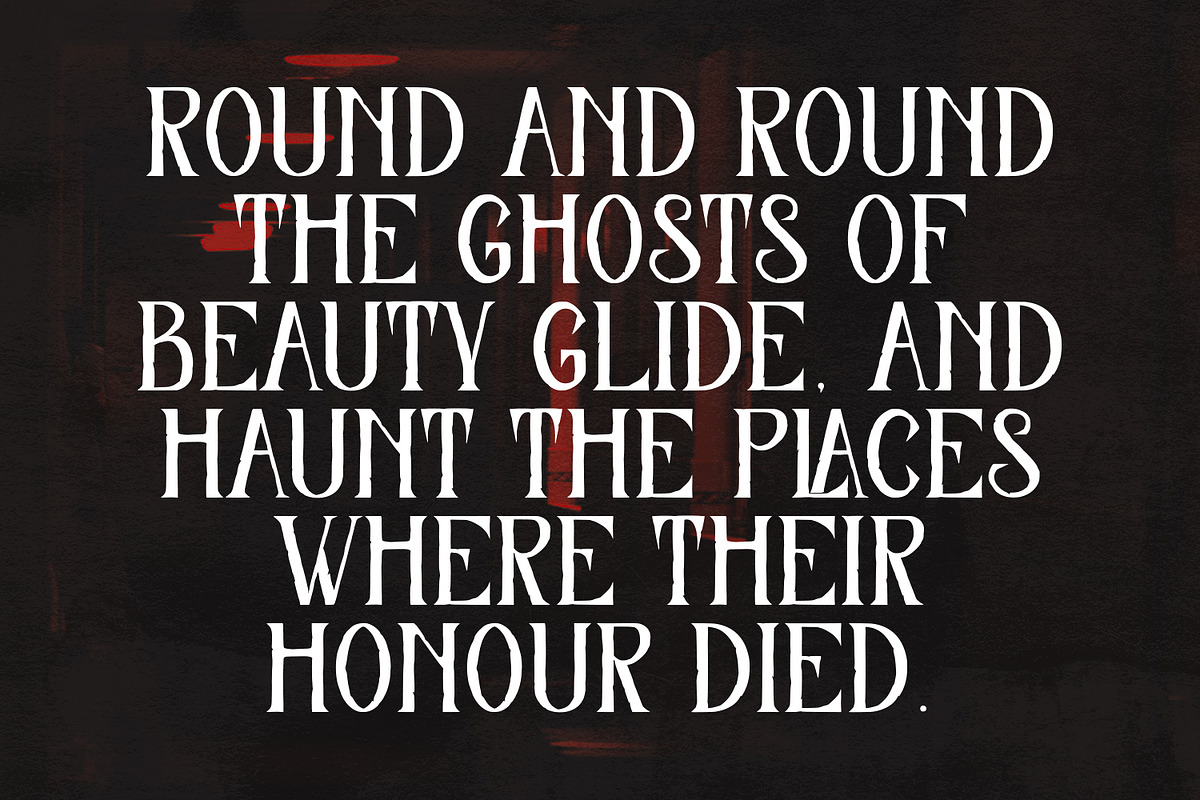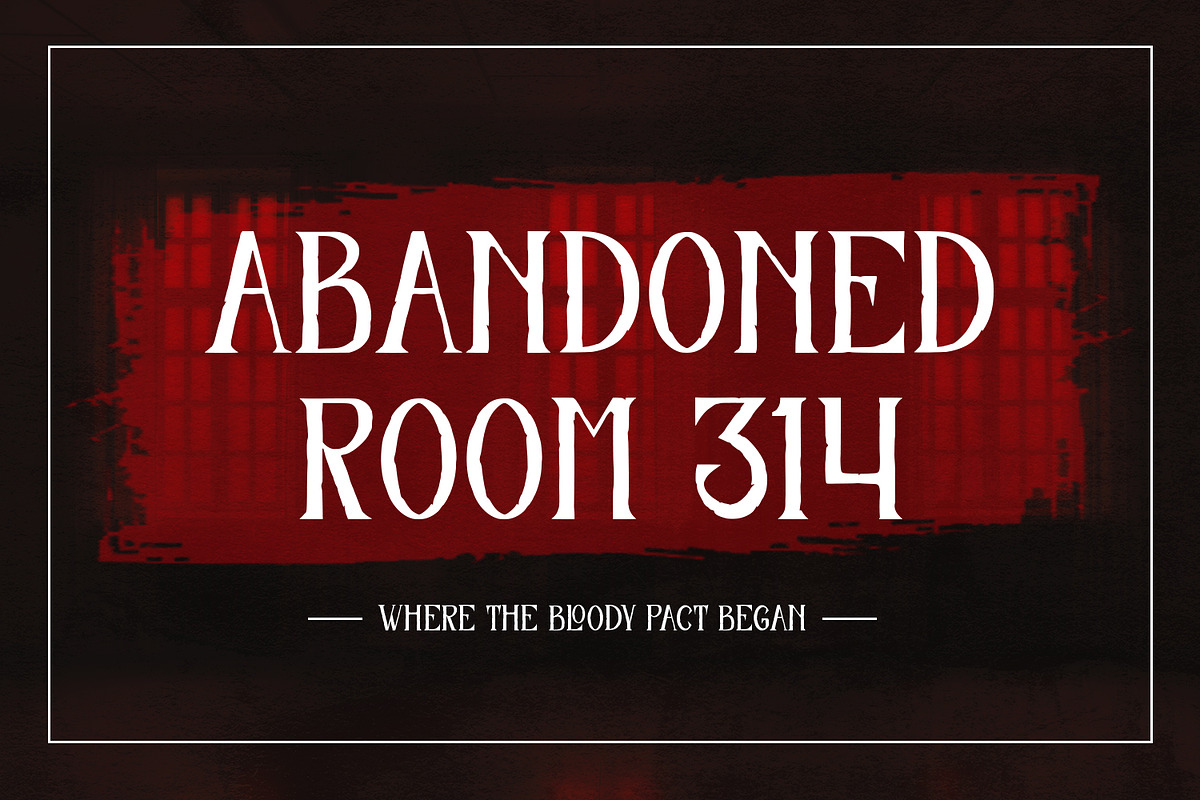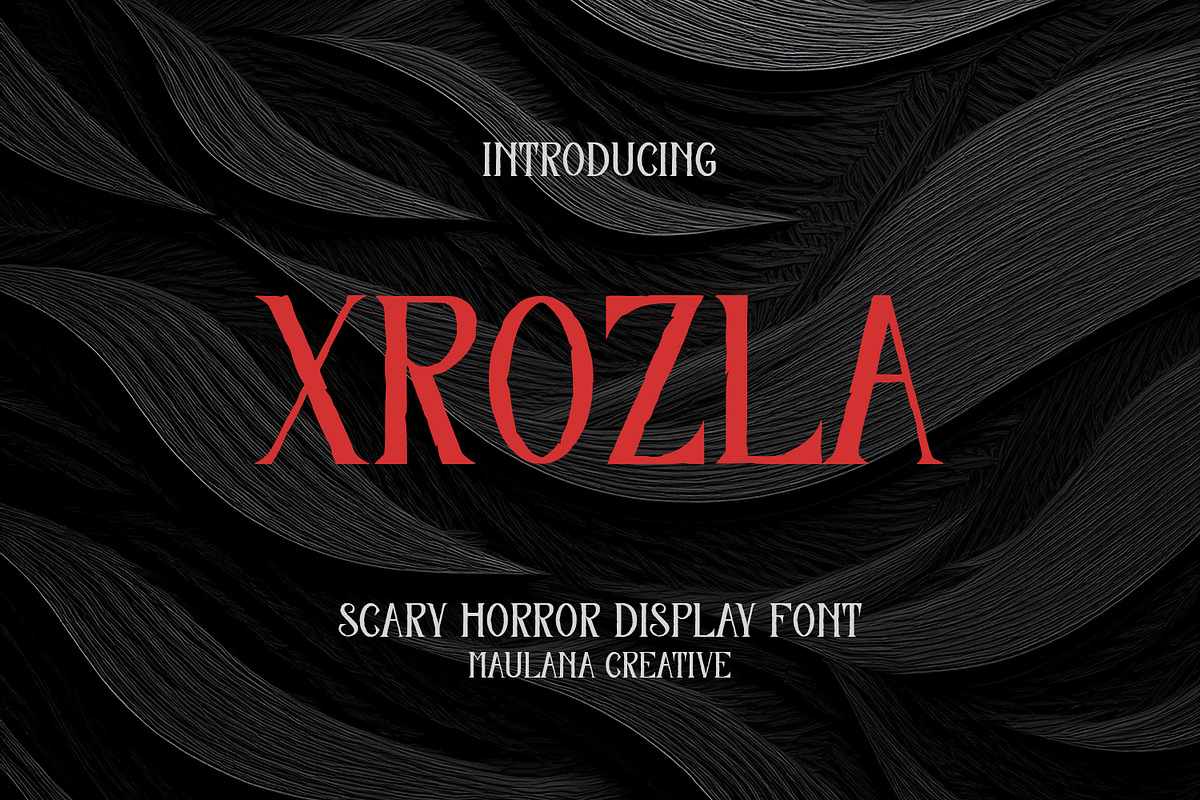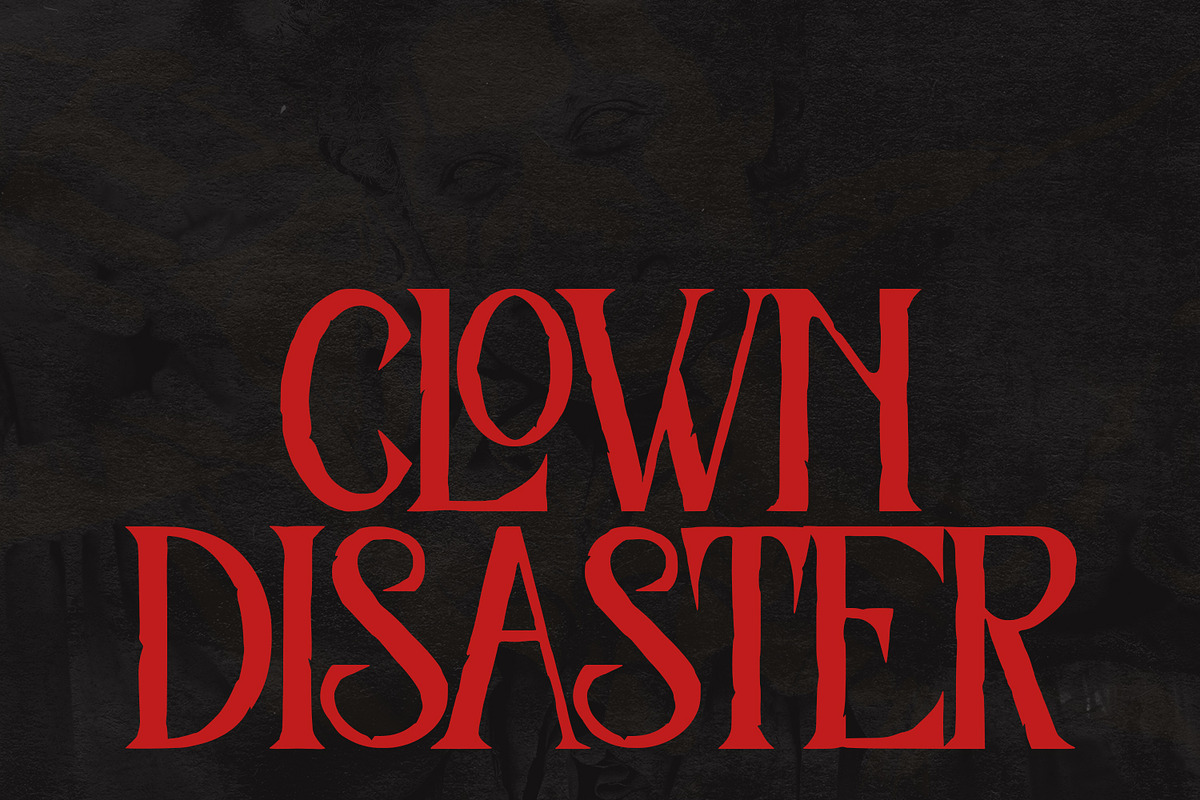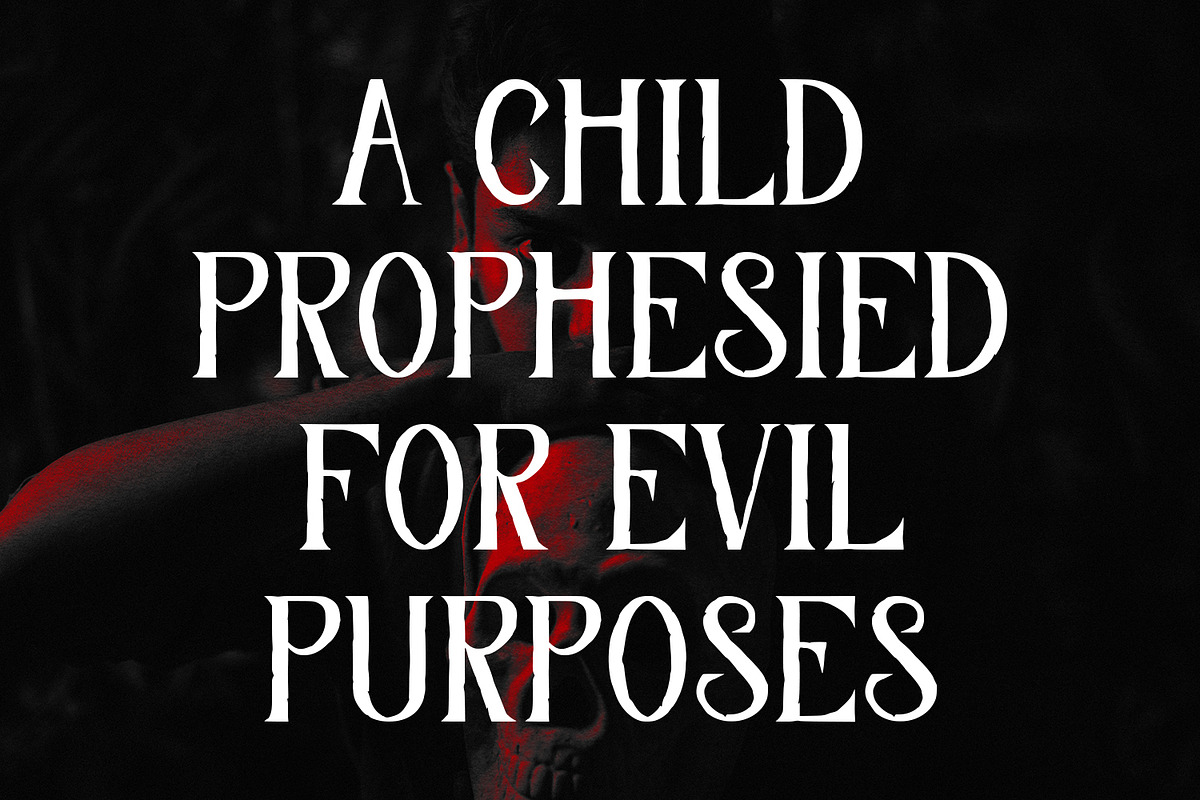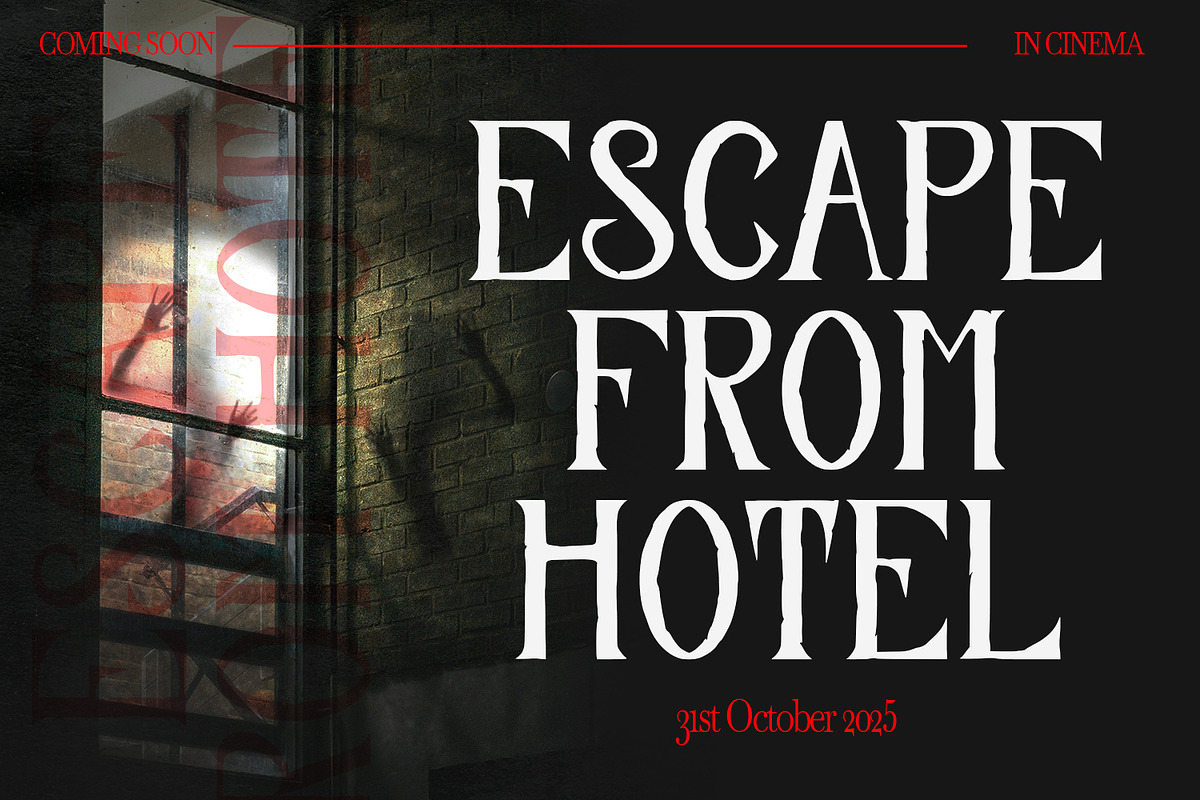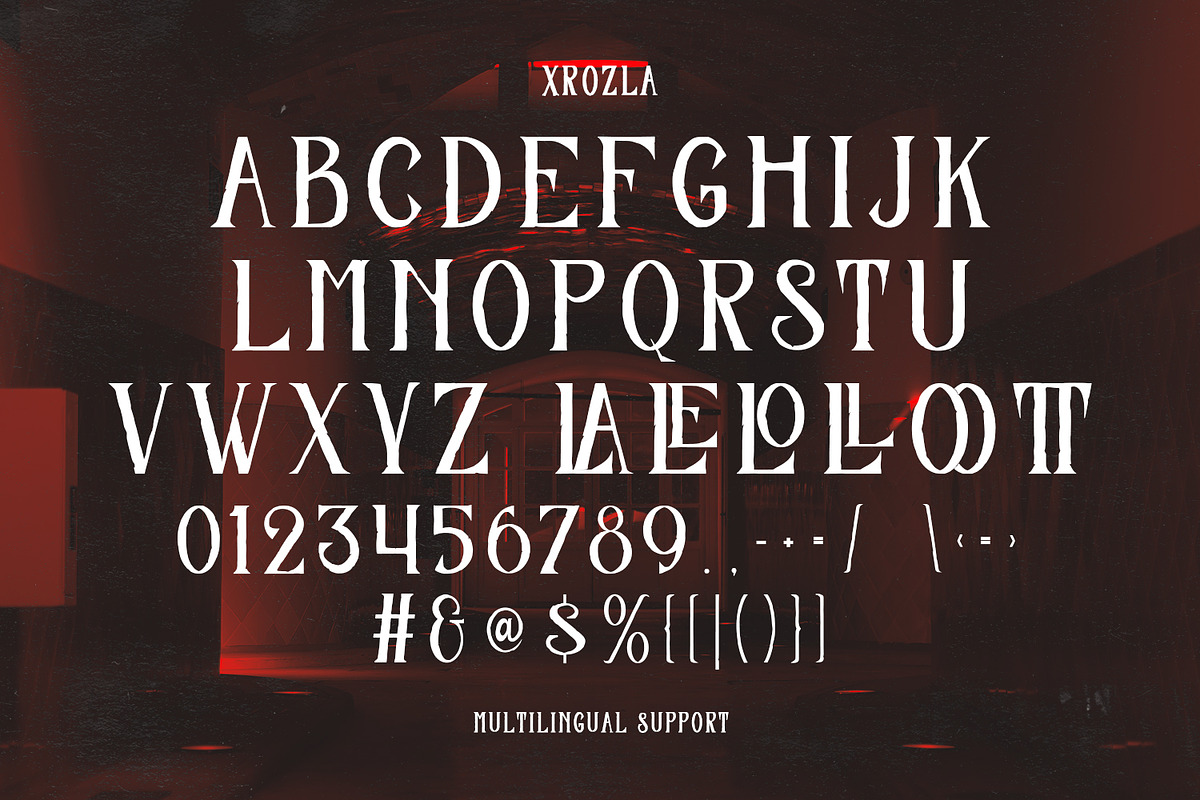
Xrozla Scary Serif Horror Display
Unleash the terror with XROZLA, a chilling display font designed to send shivers down the spine. Inspired by classic horror films and gothic aesthetics, this font features sharp, jagged serifs and a menacing presence that will instantly elevate any project with a sinister edge. The bold, all-caps design commands attention, making it perfect for creating an atmosphere of dread and suspense. XROZLA is not just a font; it's a statement, a whisper in the dark that promises a terrifying tale.
- Movie posters and titles
- Halloween-themed invitations and party flyers
- Book covers for horror, thriller, or mystery genres
- Album art for metal or rock bands
- Spooky branding and logo design
- Ligature Style